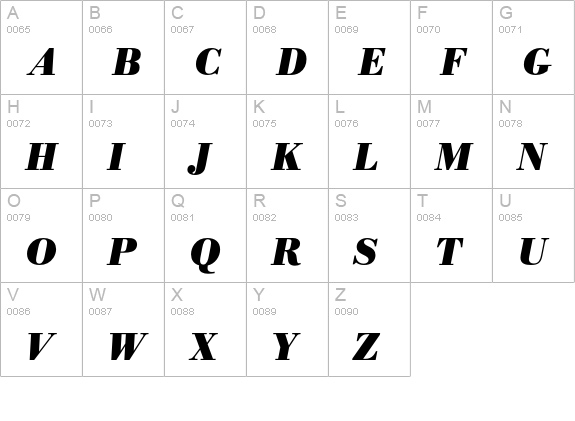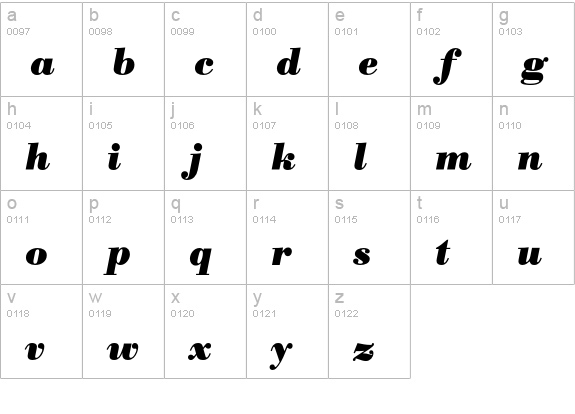
BodoniEF-BoldIta is a striking and elegant font that embodies a perfect balance between modernity and classic sophistication. Its bold and italic design exudes confidence and style, making it ideal for projects that demand attention and convey a sense of luxury. With its clean lines, sharp serifs, and graceful curves, BodoniEF-BoldIta is a timeless choice for editorial design, branding, and high-end packaging. The versatility of BodoniEF-BoldIta allows it to be used in a variety of contexts, from fashion magazines to luxury product labels. Its boldness adds a touch of drama, while its italic style brings a sense of movement and dynamism to the text. Whether used for headlines, titles, or body text, BodoniEF-BoldIta commands authority and leaves a lasting impression on the reader. Best of all, BodoniEF-BoldIta is available for free download at FontsMarket.com. This means that you can easily access this premium font and enhance your design projects without any cost. Don't miss the opportunity to elevate your work with the timeless beauty and sophistication of BodoniEF-BoldIta. Download it now and see the difference it can make in your designs.